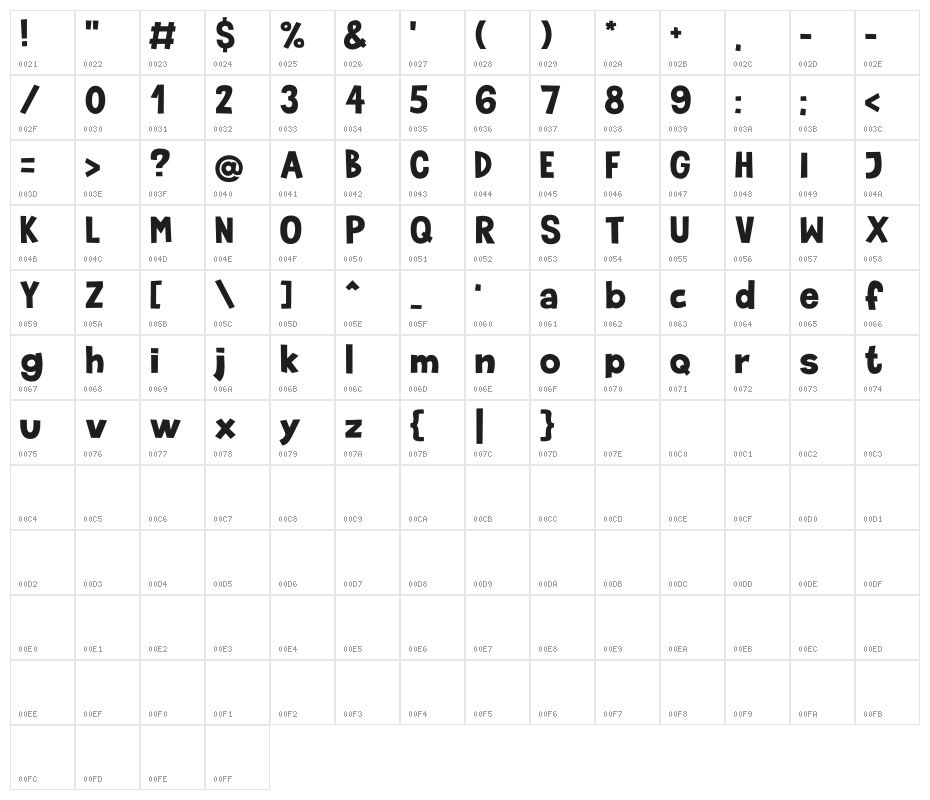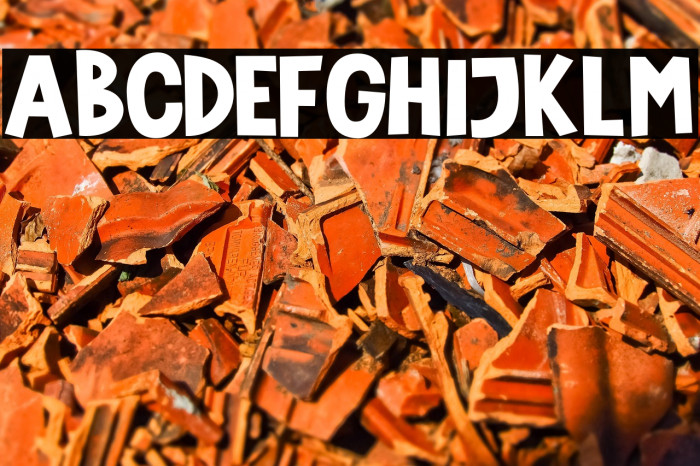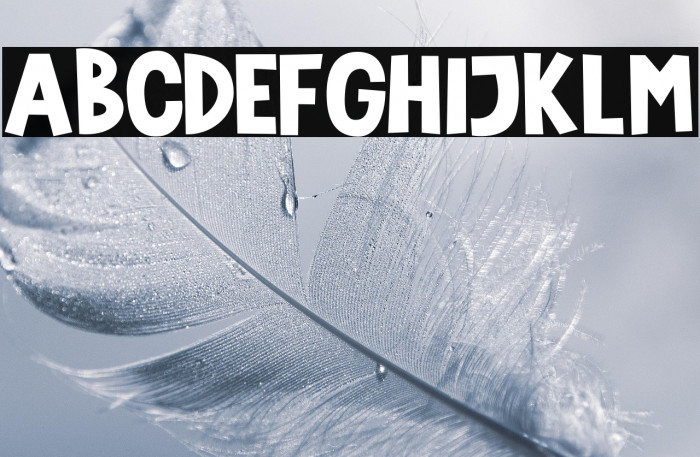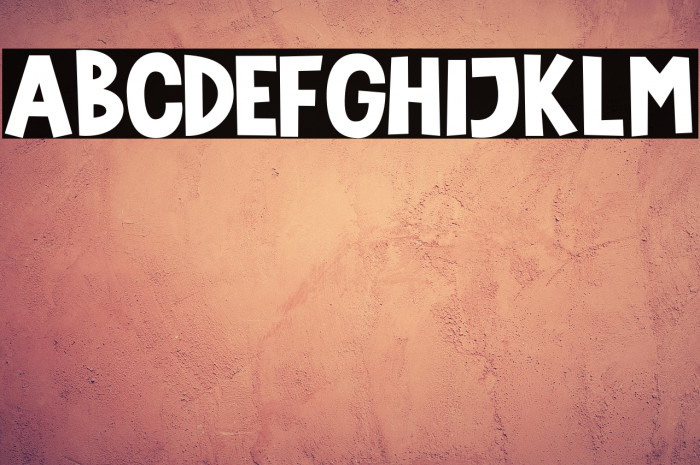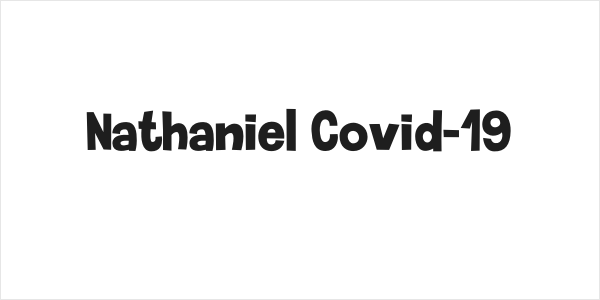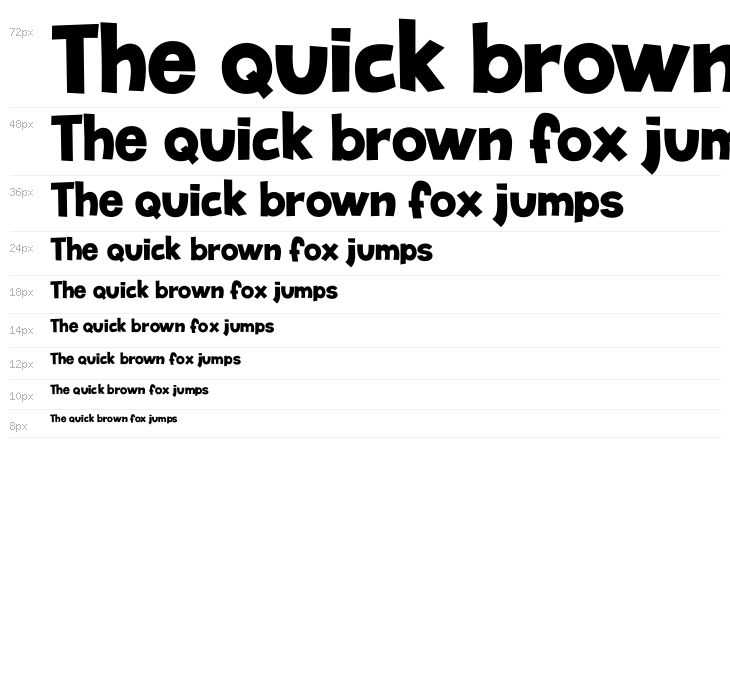
Nathaniel Covid-19 Font
Nathaniel Covid-19 Description
This font features bold, playful characters with a slightly irregular and hand-drawn appearance. The uppercase letters are robust and stand out with their thick strokes, while the lowercase letters maintain a consistent style, adding a whimsical touch. The numbers are equally bold, ensuring readability and impact. Special characters are designed to match the overall playful aesthetic, making them suitable for creative projects. The font's unique style is both eye-catching and versatile, perfect for adding a fun and informal vibe to any design.
| Overall Style | Playful, Hand-drawn |
| Proposed Projects | Ideal for children's books, playful branding, posters, and creative social media graphics. |